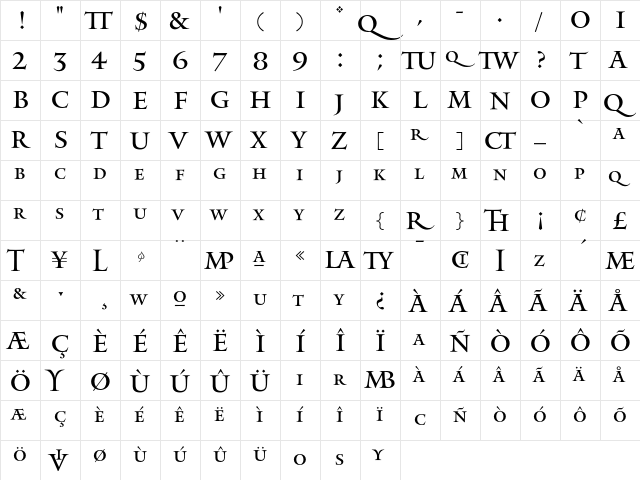
Mantinia CC Regular
Design Context for Mantinia CC Typeface
Mantinia CC takes a measured approach to typography — its balanced proportions and neutral character make it a reliable workhorse for both digital and print work.